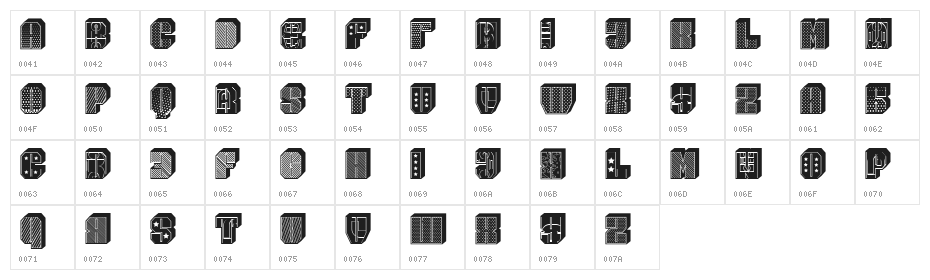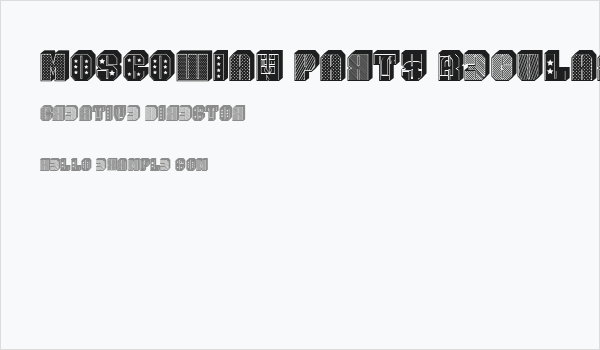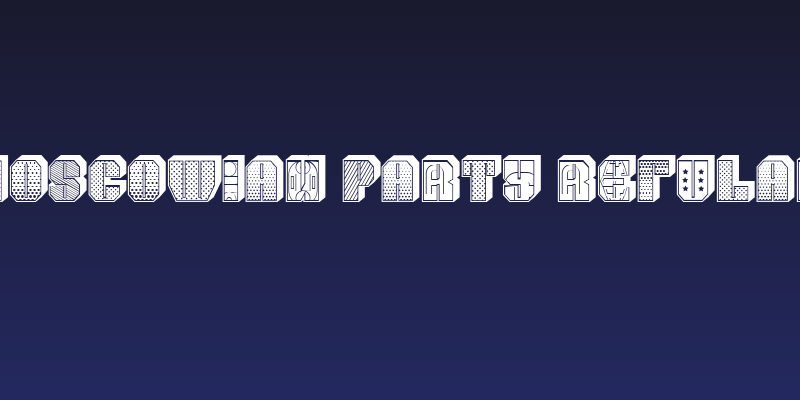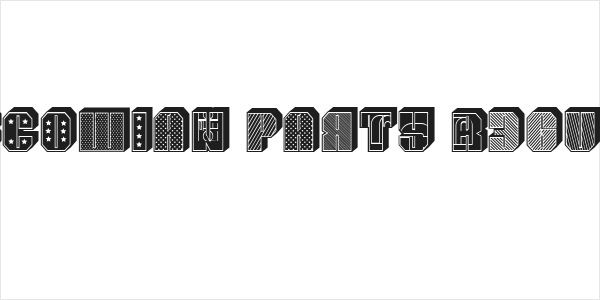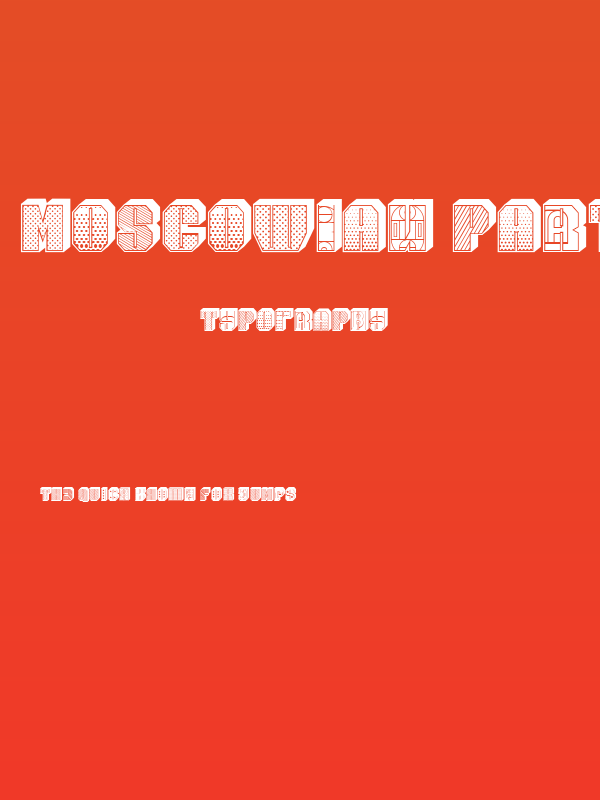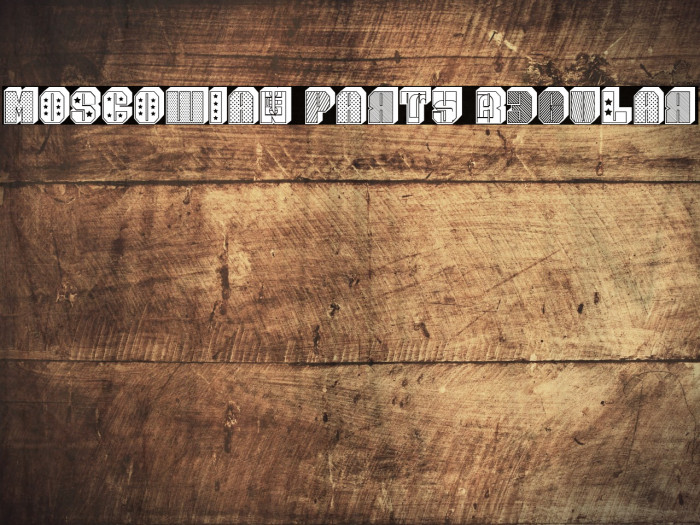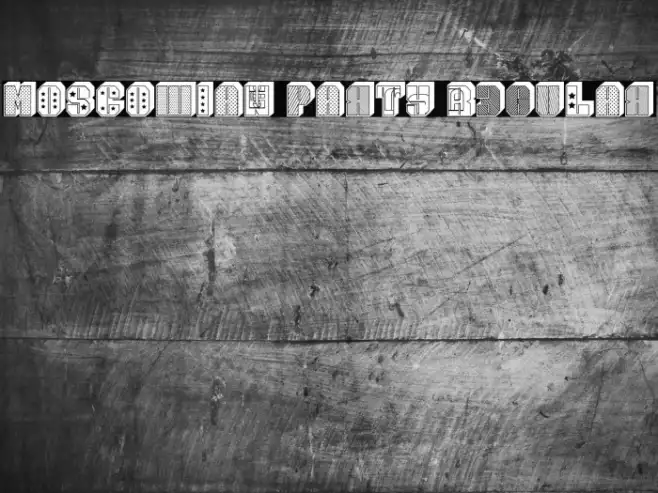
Moscowian Party Regular Font
Moscowian Party Regular Description
This font features a bold, decorative style with a unique blend of patterns and textures within each character. Each letter is filled with different designs, such as stripes, dots, stars, and geometric shapes, creating a playful and eye-catching appearance. The characters are outlined with a thick border, enhancing their visibility and adding a three-dimensional effect. This font is ideal for projects that require a fun and dynamic look, making it suitable for party invitations, posters, and other creative designs. The uppercase letters are particularly striking, with each character offering a distinct visual experience.
| Proposed Projects | Ideal for party invitations, event posters, and playful branding projects. |